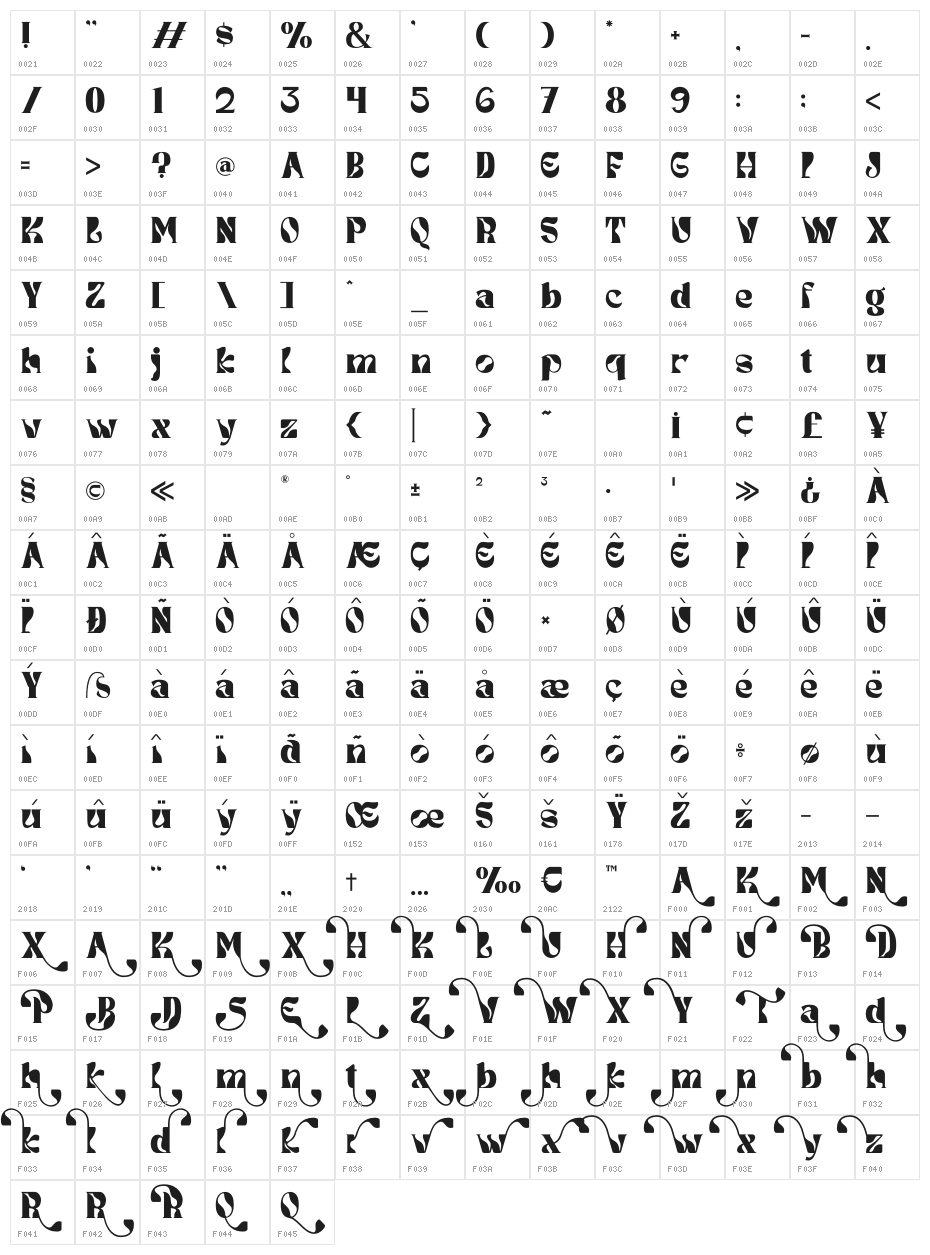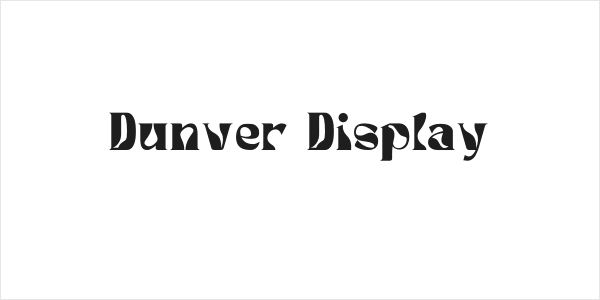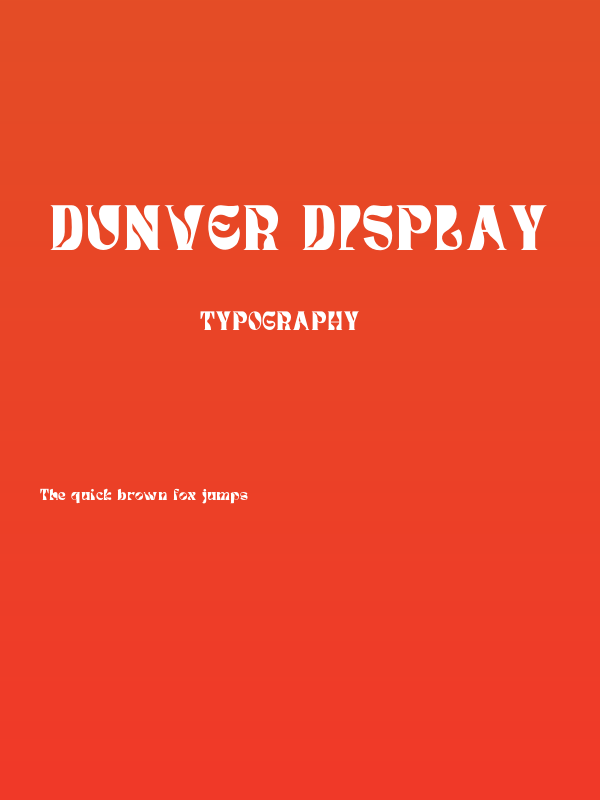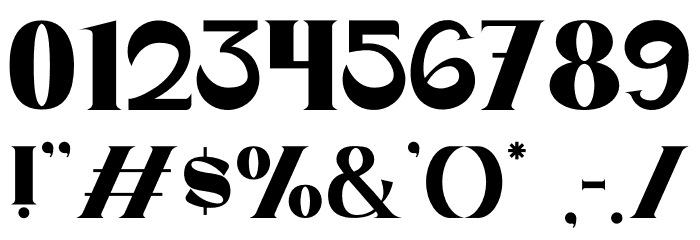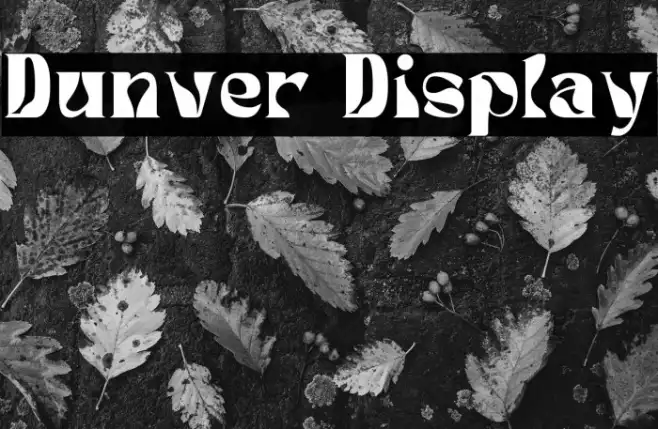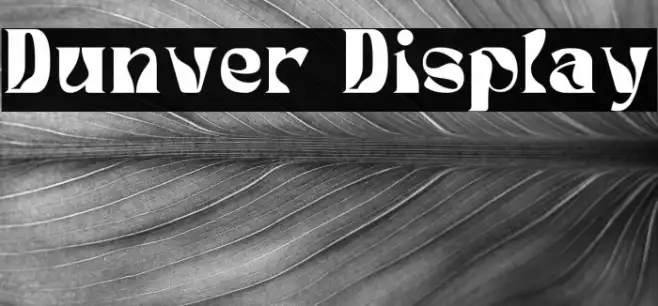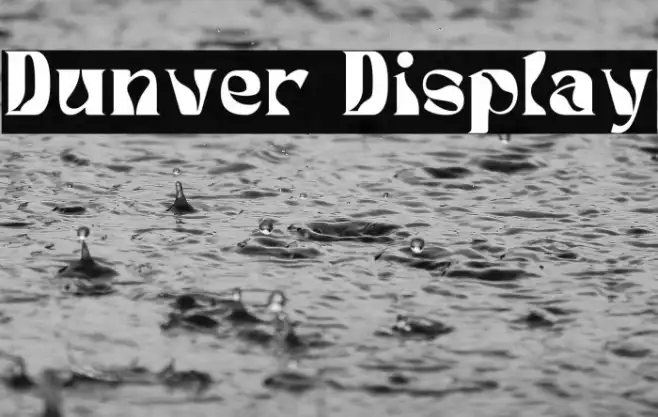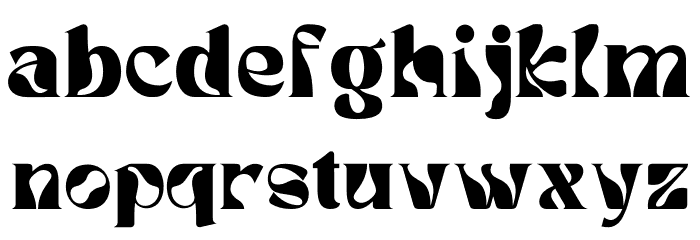
Dunver Display Font
Dunver Display Description
This font exhibits a bold and striking design with a unique blend of sharp angles and smooth curves. The uppercase letters are particularly distinctive, featuring dramatic serifs and a strong presence. The lowercase letters maintain the boldness, with a slightly more rounded appearance, providing a harmonious balance. Numbers are equally bold, ensuring readability and impact. Special characters are designed with the same attention to detail, making them stand out. The overall aesthetic is both modern and decorative, suitable for making a statement.
| Proposed Projects | This font is perfect for branding, poster design, and any project that requires a bold, eye-catching typeface. |